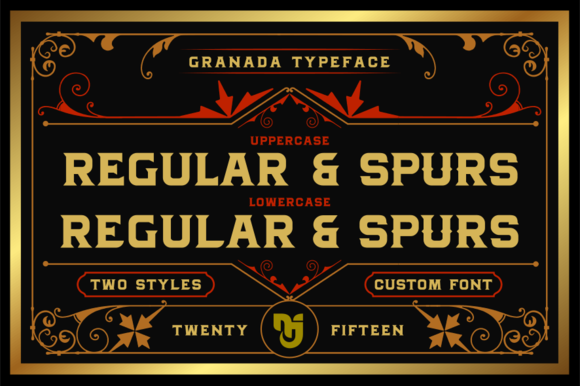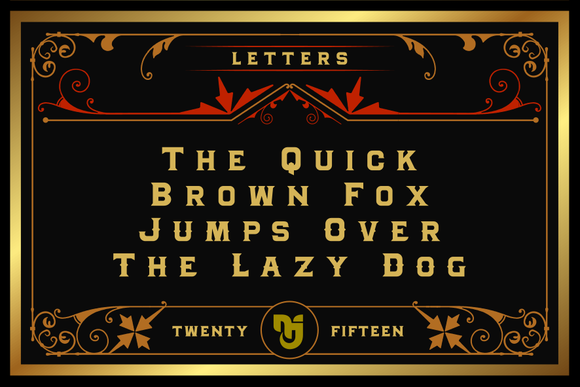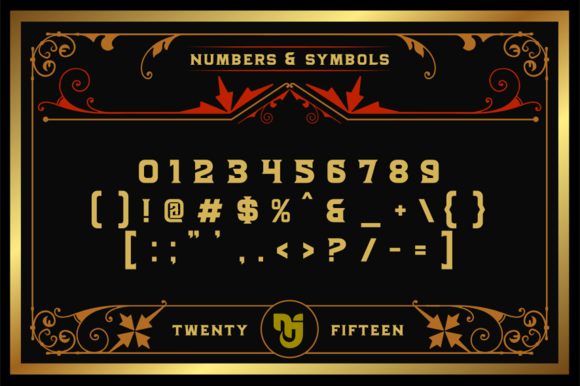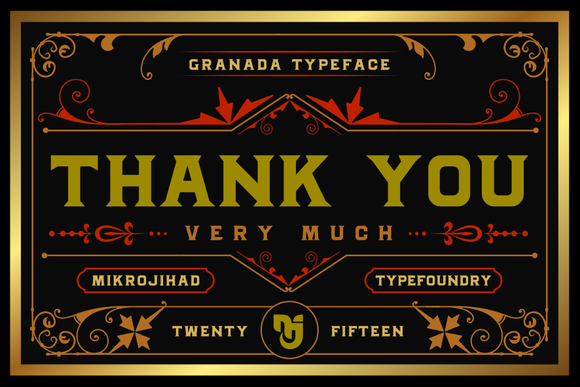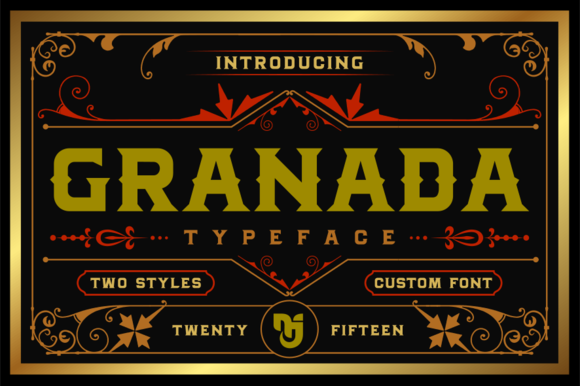
Discover the Timeless Elegance of Granada Font
Are you a designer or crafter looking for a font that exudes classic style, boldness, and strength? Look no further than the Granada Font. This stunning custom font is perfect for projects that require a touch of old-world charm and sophistication. With its consistent wide strokes, complete punctuation, and numbers, Granada is sure to elevate your designs to the next level.
What Makes Granada Font So Special?
Granada Font is a unique and versatile typeface that boasts a range of characteristics that set it apart from other fonts. Here are just a few reasons why Granada is a top choice for designers and crafters:
- Classic and Old-Stylish: Granada Font has a timeless quality that is reminiscent of traditional printing techniques. Its classic design makes it perfect for projects that require a vintage or retro look.
- Bold and Strong: Despite its classic style, Granada Font is surprisingly bold and strong. The wide strokes of the letters give it a sturdy feel that is perfect for headlines, titles, and other display text.
- Complete with Punctuation and Numbers: Granada Font is a comprehensive typeface that includes a full range of punctuation marks and numbers. This makes it easy to use for a wide range of design projects, from brochures and flyers to posters and signage.
Uses for Granada Font
Granada Font is a versatile typeface that can be used for a wide range of design projects. Here are just a few ideas to get you started:
- Headlines and Titles: The bold, strong strokes of Granada Font make it perfect for headlines and titles. Use it to grab attention and add emphasis to your text.
- Logos and Branding: Granada Font’s classic style and bold strokes make it a great choice for logos and branding projects. Use it to create a memorable and timeless brand identity.
- Posters and Signage: The wide strokes and bold design of Granada Font make it easy to read from a distance, making it perfect for posters and signage.
- Packaging and Product Design: Granada Font’s classic style and strong strokes make it a great choice for packaging and product design. Use it to add a touch of sophistication and elegance to your products.
Tips for Using Granada Font
Here are a few tips to help you get the most out of Granada Font:
- Use it with Contrast: Granada Font’s bold design makes it perfect for use with contrasting colors or fonts. Try pairing it with a lighter font or a bold color to create visual interest.
- Experiment with Sizes: Granada Font’s wide strokes make it easy to read in a variety of sizes. Experiment with different sizes to find the perfect fit for your project.
- Don’t be Afraid to Get Creative: Granada Font is a versatile typeface that can be used in a wide range of design projects. Don’t be afraid to get creative and try new things!
Granada Font is a timeless and elegant typeface that is perfect for designers and crafters looking for a classic, old-stylish, bold, and strong custom font. With its consistent wide strokes, complete punctuation, and numbers, Granada is sure to elevate your designs to the next level. Whether you’re working on a headline, title, logo, or packaging design, Granada Font is a versatile and reliable choice. So why wait? Download Granada Font today and start creating stunning designs that exude classic style and sophistication!